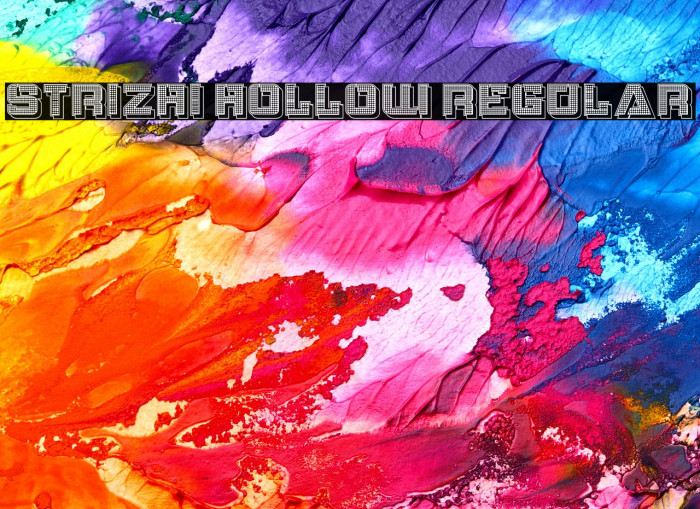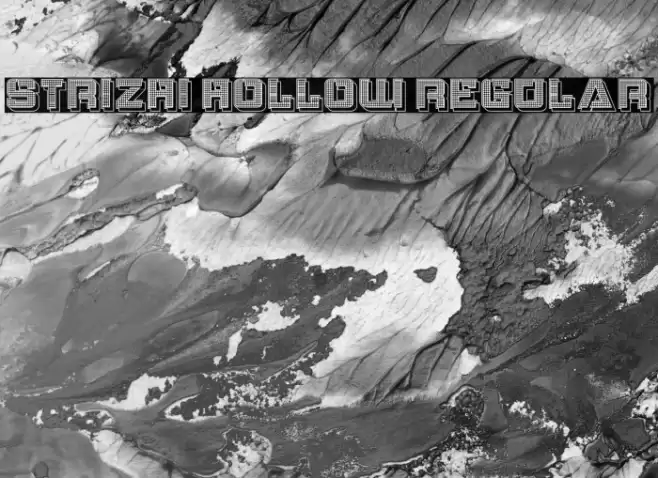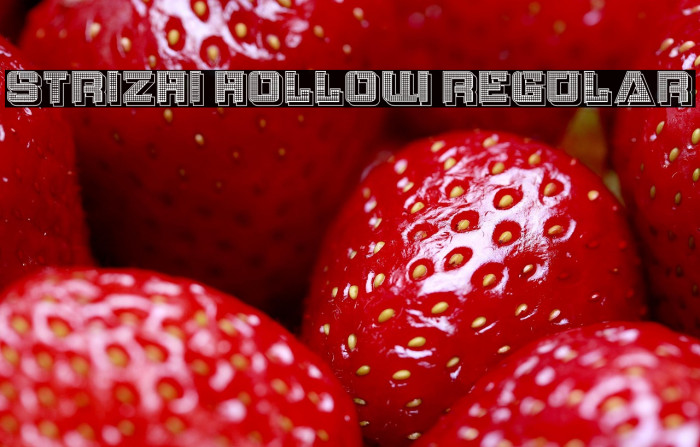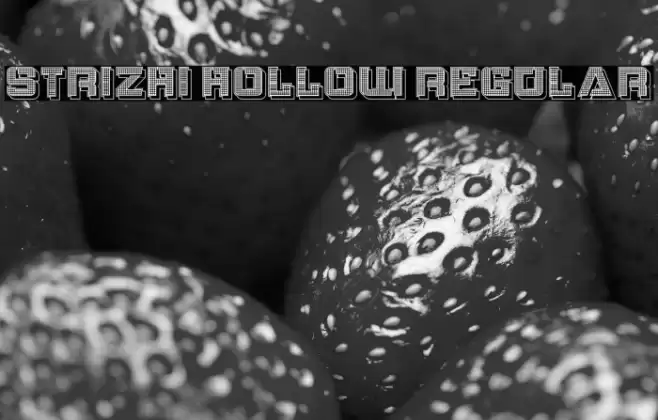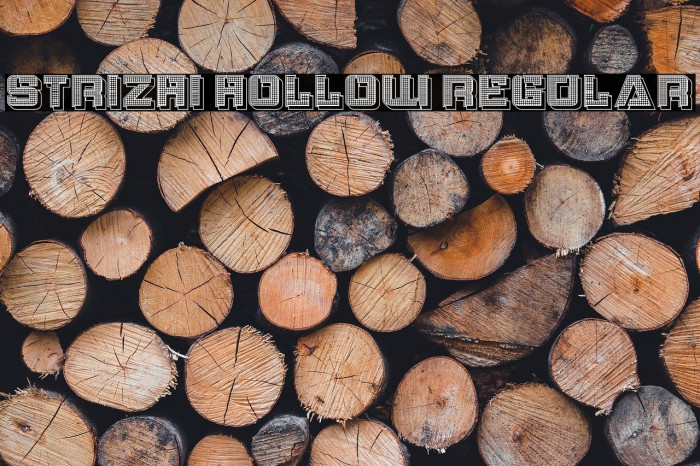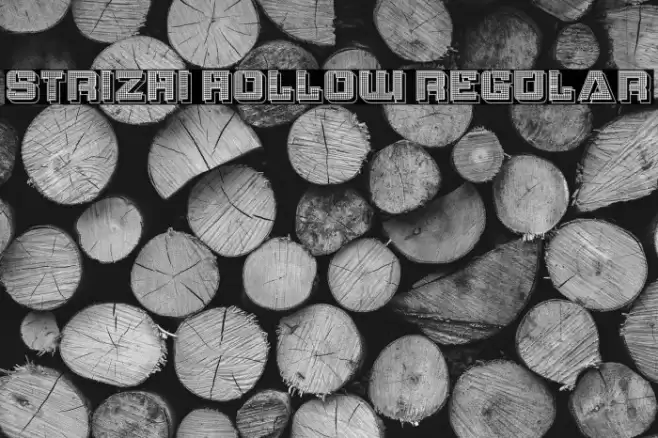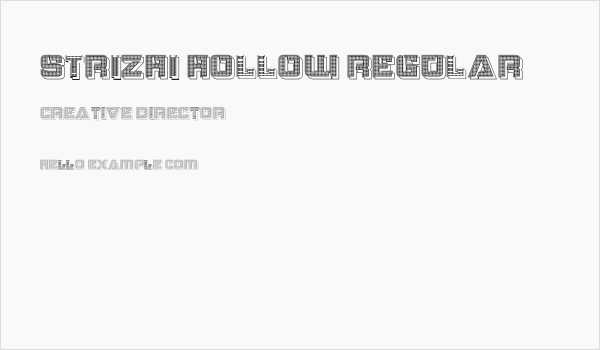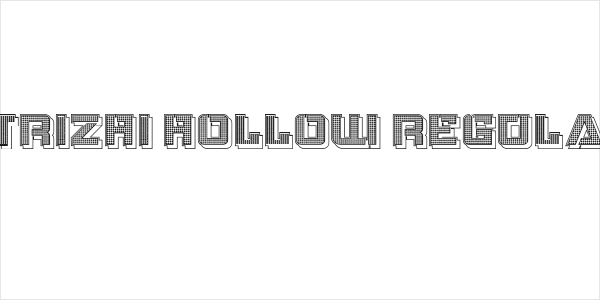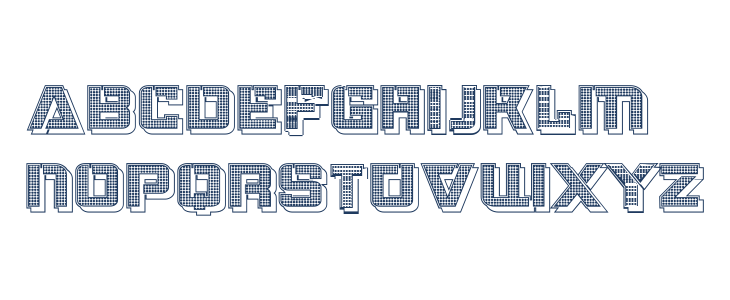
Strizhi Hollow Regular Font
Strizhi Hollow Regular Description
This font features a bold, geometric design with a hollow interior, giving it a striking and modern appearance. The characters are constructed with a grid-like pattern inside, adding a unique texture and depth. The uppercase letters are uniform in height and width, maintaining a consistent and balanced look. The font's style is reminiscent of digital or technological themes, making it suitable for futuristic or tech-related projects. Its bold outlines ensure high visibility and impact, making it ideal for attention-grabbing designs.
| Proposed Projects | Ideal for tech-themed posters, digital artwork, video game titles, and futuristic branding. |